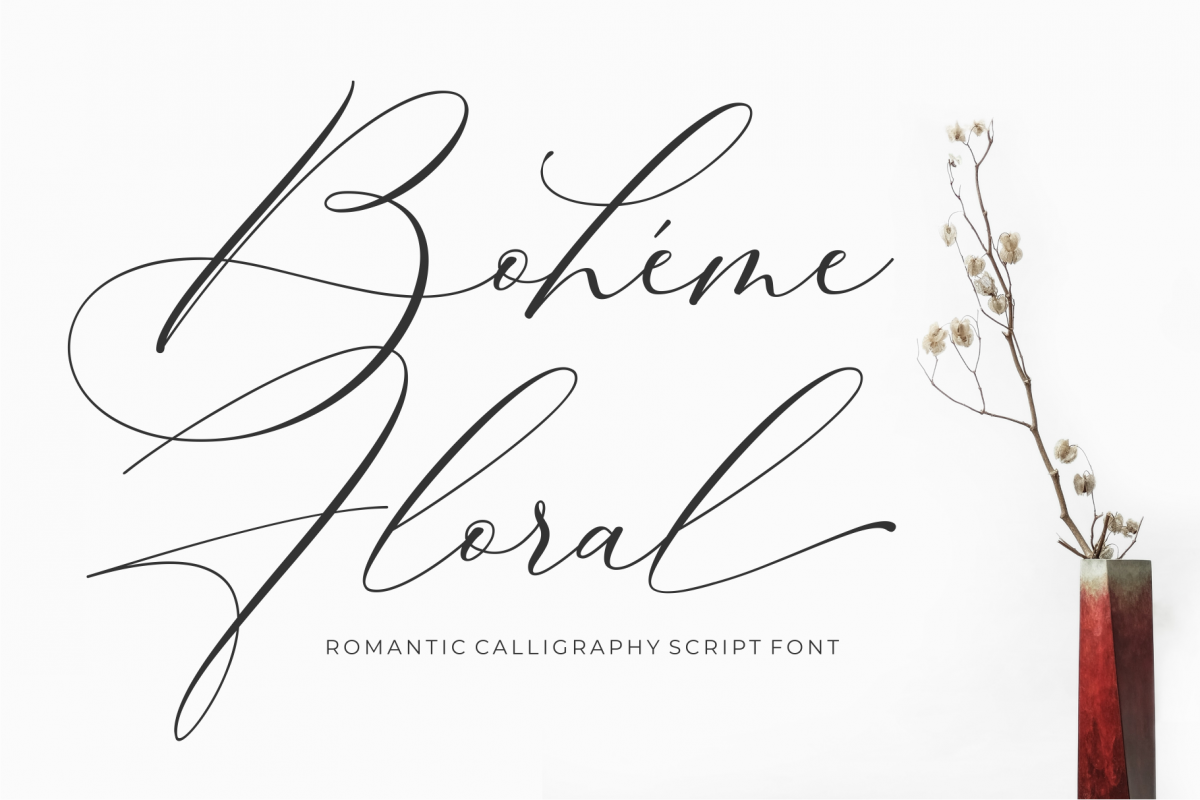
Boheme Floral
Introducing Bohéme Floral Script Font a classic romantic calligraphy with lovely movements. This font also has lovely ligatures, alternative letters and swashes.
Bohéme Floral Script Font is great for logo, printed quotes, badge, insignia, packaging, headline, poster, t-shirt/apparel, greeting card, and wedding invitation, & etc.